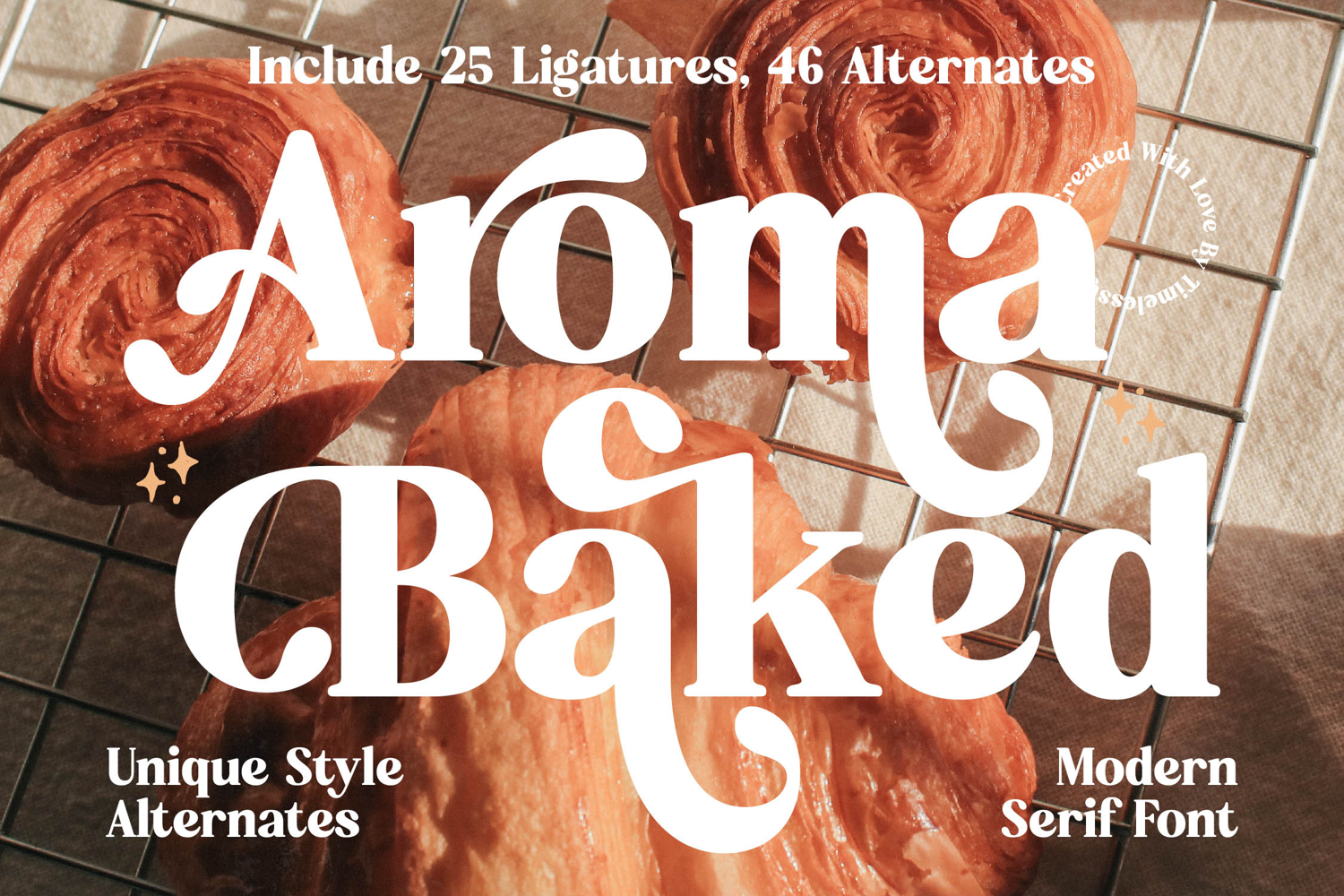
Aroma Baked - Modern Serif Font
Unleash a new level of design sophistication with Font Aroma Baked - Modern Serif Font Serif Display, a captivating display serif that marries modern elegance with an artisanal charm. Its distinctive high-contrast strokes and expressive serifs create an instant visual impact, making it the perfect choice for projects demanding both readability and artistic flair. This font is engineered to command attention and convey a sense of refined quality.
Elevate your typography with unparalleled versatility, thanks to the generous inclusion of 25 Ligatures and 46 Alternates. These extensive stylistic sets within Font Aroma Baked - Modern Serif Font Serif Display empower designers with profound creative flexibility, allowing for truly unique typographic compositions that feel custom-crafted. Discover endless possibilities to infuse your designs with a bespoke and memorable character.
Perfectly poised for commanding attention, Font Aroma Baked - Modern Serif Font Serif Display is ideal for luxury branding, gourmet packaging, editorial layouts, high-end marketing materials, and invitation design. It excels in scenarios where an elegant and distinctive aesthetic is paramount. With its extensive multilingual support, Font Aroma Baked - Modern Serif Font Serif Display adapts seamlessly across global markets, making it incredibly versatile for international projects.
Invest in design that truly resonates. Font Aroma Baked - Modern Serif Font Serif Display is more than just a font; it's a powerful asset that communicates quality, sophistication, and refined taste. Choose this exceptional modern serif to elevate your brand's visual identity and transform any design project from ordinary to extraordinary.